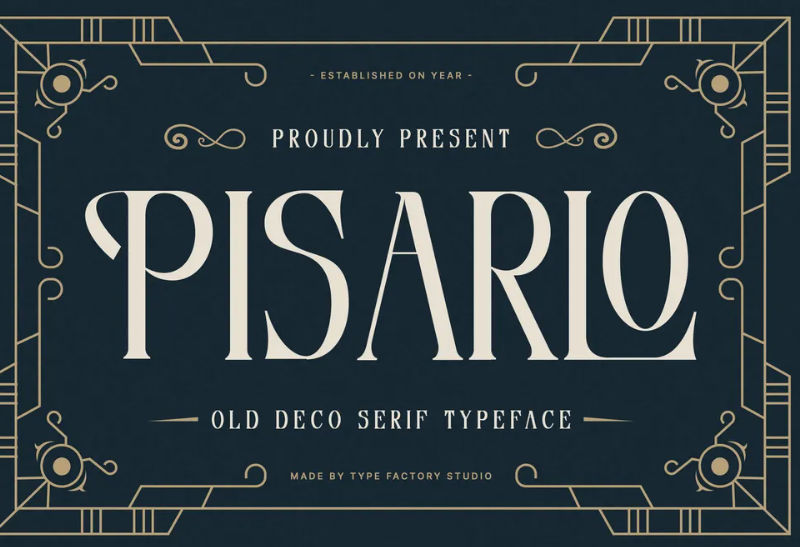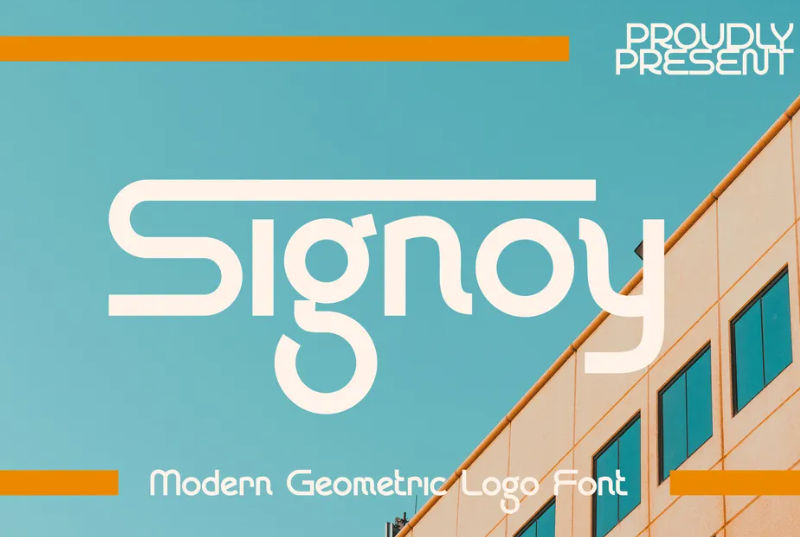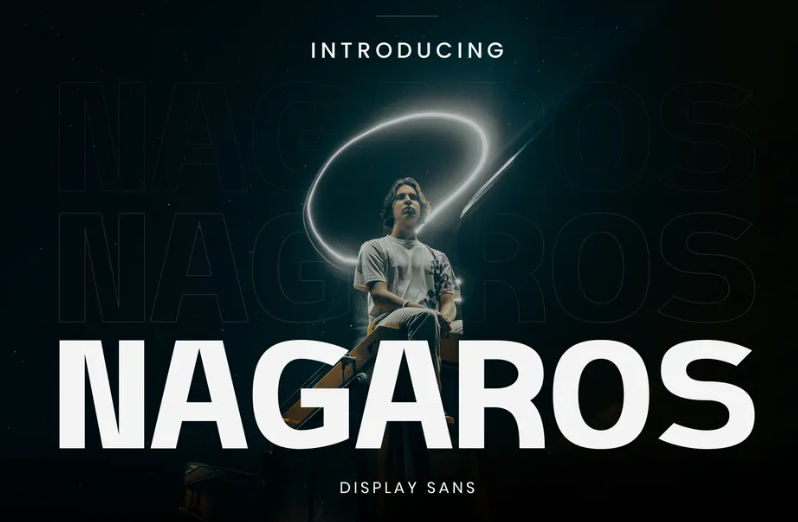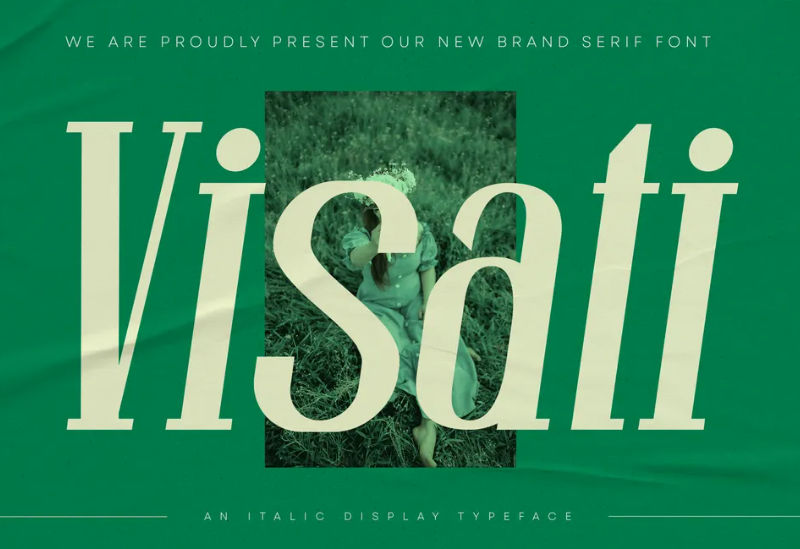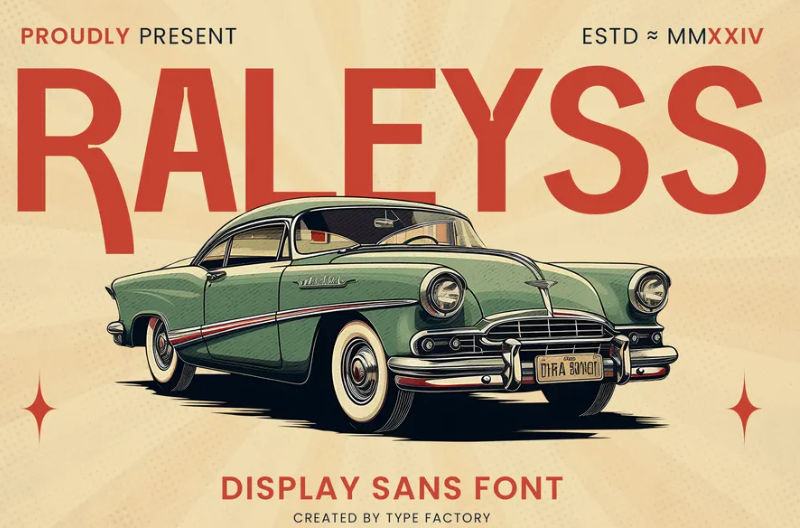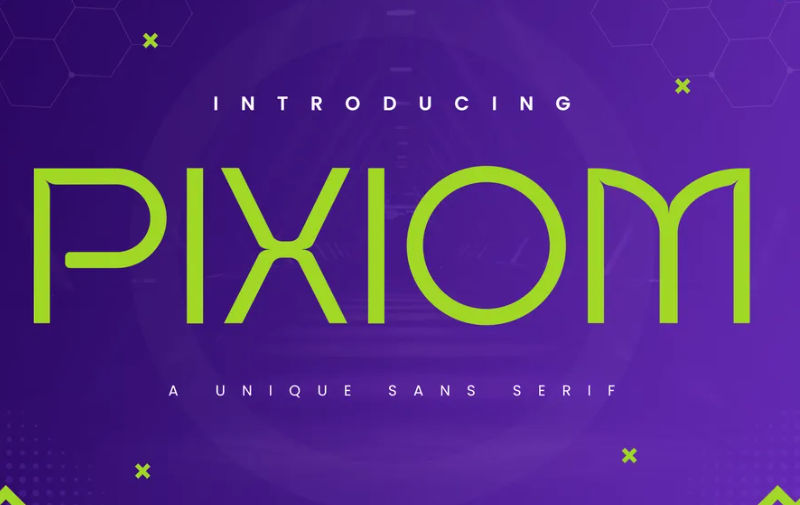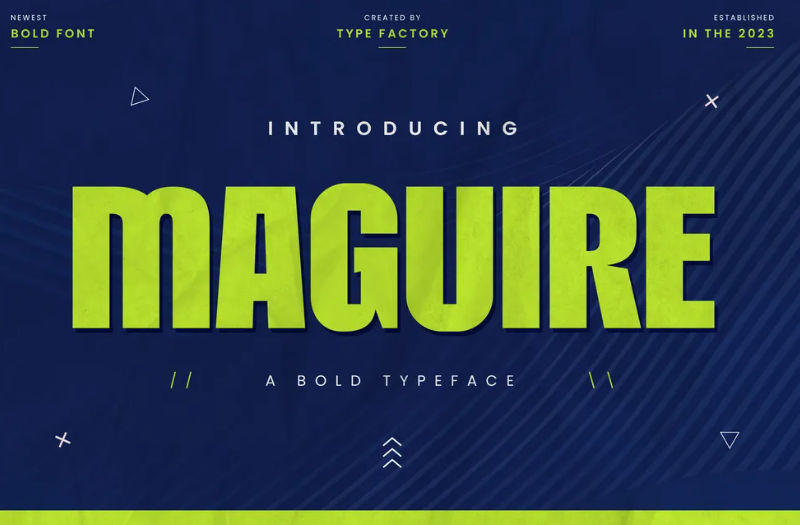
50 Funny Work Quotes to Lighten the Mood During a Long Shift
Waking up feels like a glitch in the matrix where the only rewards are unread emails. We’re all just “circling back” in a never-ending loop of deadlines that seems designed to test our collective patience. Fortunately, sprinkling some funny work quotes into the group chat is the secret weapon that keeps us from actually losing it.
With a well-timed joke, you can turn a soul-crushing Monday into a shared moment of much-needed office rebellion. So, stick around and read more to find the perfect punchline for your next mental breakdown!
50 Relatable Funny Work Quotes That Every Professional Needs
Besides coffee, below we’ll present fifty funny inspirational quotes about work that prove you aren’t alone in this chaotic professional circus.
The “Meeting That Should Have Been An Email” Quotes
1. This meeting is the reason my inbox stays full.
2. I survived a meeting that was just an email.
3. My camera is off so I can finally eat.
4. We are now circling back to the very beginning.
5. This whole agenda could fit in one short Slack.
6. Please do not “reply all” to this calendar invite.
7. My soul left my body during the third slide.
8. That “quick touch base” just killed my entire afternoon.
9. I am muted so you cannot hear me sighing.
10. We just spent sixty minutes deciding absolutely nothing today.
Inspirational Funny Quotes for Monday Morning
1. Rise and grind because those bills won’t pay themselves.
2. Attack this Monday with the soul of a winner.
3. Your coffee is strong and your spirit is ready.
4. Dress like a boss even if you feel tired.
5. Make today so great that Tuesday feels jealous now.
6. The weekend is gone, but your goals are waiting.
7. Strive to live up to the heroic version of yourself your dog sees.
8. Let one positive spark ignite a better outlook for the days ahead.
9. Believe in yourself and the power of caffeine today.
10. Slay the day like you slay the Sunday brunch.
Funny Quotes for Corporate Work and Professionalism
1. My “professional” voice is just a very high pitch.
2. I am currently “circling back” to my lunch break.
3. Please see the attached file for my sanity today.
4. Let us align our synergies for maximum corporate impact.
5. I use big words to sound very smart today.
6. My “out of office” reply is my favorite poem.
7. I put the “pro” in “procrastinating” every single morning.
8. The ‘easy wins’ are actually located in the nosebleed section.
9. Being professional means hiding how tired you are now.
10. We should take this offline and never speak again.
Funny Work Quotes About Technology and Its Grind
1. My computer is updating exactly when I need it.
2. I’ve managed to lose my password for the third time today.
3. This laptop is getting warmer than my morning coffee.
4. I am currently battling the printer, and I lost.
5. Please do not touch my dual monitor setup ever.
6. My internet is slower than a turtle in mud.
7. One more software update and I will just scream.
8. I typed my password correctly, but it failed anyway.
9. That “simple” tech fix took me five whole hours.
10. The WiFi signal is weaker than my Monday motivation.
Funny yet Sarcastic Quotes for Paydays at Work
1. My paycheck and I are barely on speaking terms.
2. I worked forty hours for this tiny little amount.
3. Look, my money arrived, and now it is gone.
4. My bank account is finally happy for one hour.
5. I am rich for exactly fifteen minutes every month.
6. This salary is why I let out a very loud sigh.
7. I need a raise or a very wealthy relative.
8. My bills are faster than my direct deposit today.
9. Is this a paycheck or just a cruel joke?
10. I love payday, but my rent feels much stronger.
7 Creative Fonts for Funny Work Quotes and Captions
Funny workplace quotes won’t seem inspiring or entertaining if you use the wrong font. To help, we’ve selected seven fonts below that perfectly capture your corporate wit.
1. Pisarlo
This font adds a touch of “vintage class” to your sarcasm, which makes even the pettiest workplace gripe look like a sophisticated 1920s headline.
2. Signoy
Its clean, circular shapes provide a friendly and approachable vibe that is perfect for funny work quotes about “teamwork” that are actually about long meetings.
3. Nagaros
This bold, edgy typeface commands attention and works best for punchy, high-energy captions that need to stand out on a busy feed.